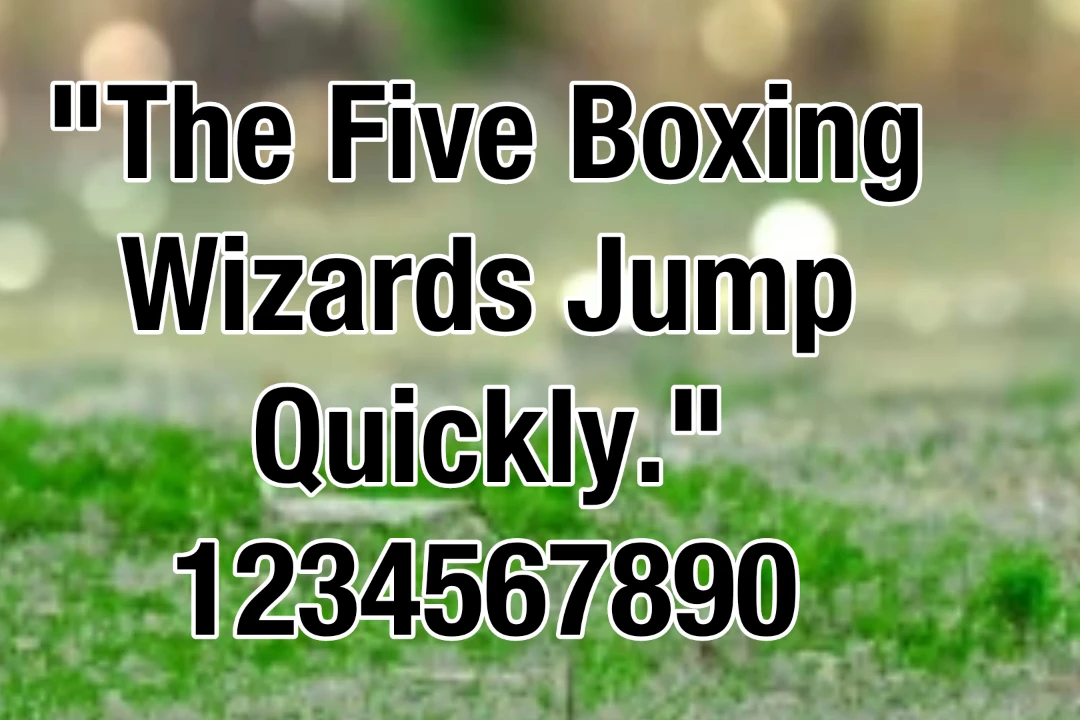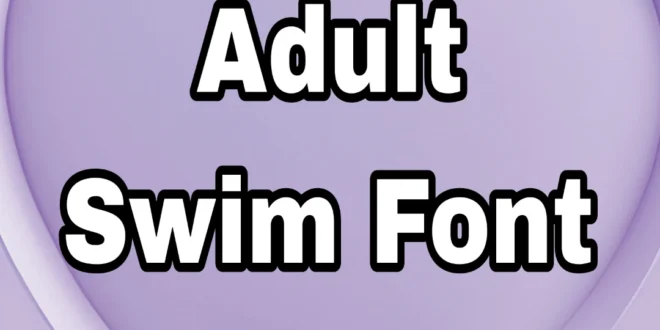
Today, we are examining a novel typeface that was planned by two typographic creators named Max Miedinger and Eduard Hoffman.
It has a place with the sans-serif typeface and it is likewise called Neue Haas Grotesk Text style. Various spots where this text style is being utilized.
This appealing and eye-getting typeface was delivered in 1957 at a renowned textual style foundry known as Linotype.
Because of its gorgeous and striking characters, this typeface got a marvelous position, and numerous global ventures utilize this typeface for their marking and logos.
It has three wonderful styles including Strong, Italic, and Dense. This typeface is like other Grotesk Text styles.
Uses of Adult Swim Font
Consequently, everybody realizes that various text styles have many purposes yet their unprecedented highlights make them unique about other people.
You can involve this comfortable typeface for a ton of plans like logos plans, boards, insignias, promotions, and numerous other related plans purposes. However, different expert creators utilize this typeface for their expert ventures.
Additionally, this shocking typeface is utilized for public transportation route frameworks. Numerous YouTubers utilize this typeface for thumbnails.
Adult Swim Font View
Adult Swim Font Family (Includes Total 04 Types)
- Adult Swim Regular
- Adult Swim Light
- Adult Swim Bold
- Adult Swim Semi-Bold
Adult Swim Font Info
| Name | Adult Swim Font |
| Designer | Max Miedinger & Eduard Hoffman |
| Type | Sans Serif |
Who founded Adult Swim Font?
This delightful and appealing typeface was laid out by a group of two well-known and splendid fashioners named Max Miedinger and Eduard Hoffman.